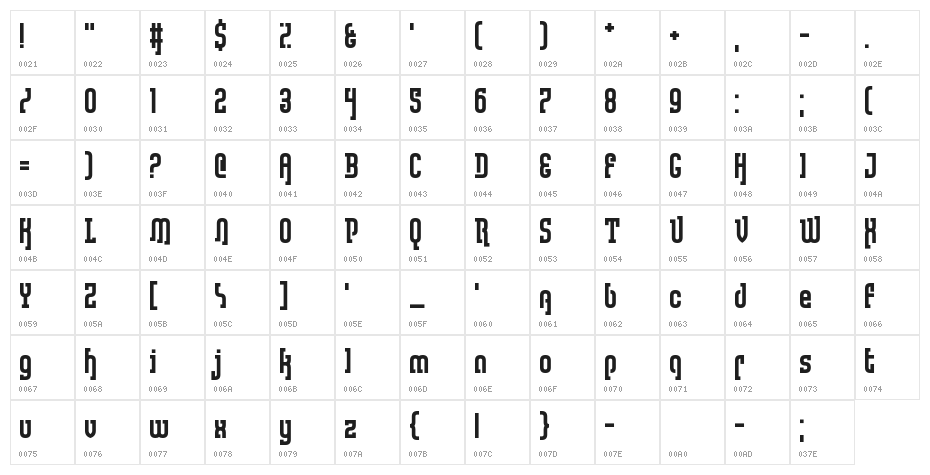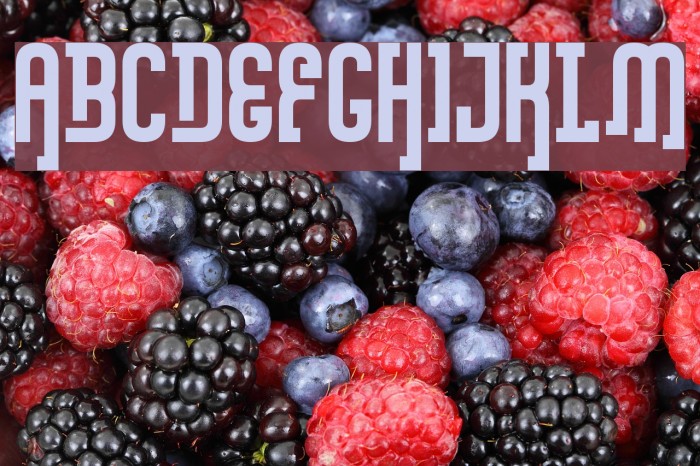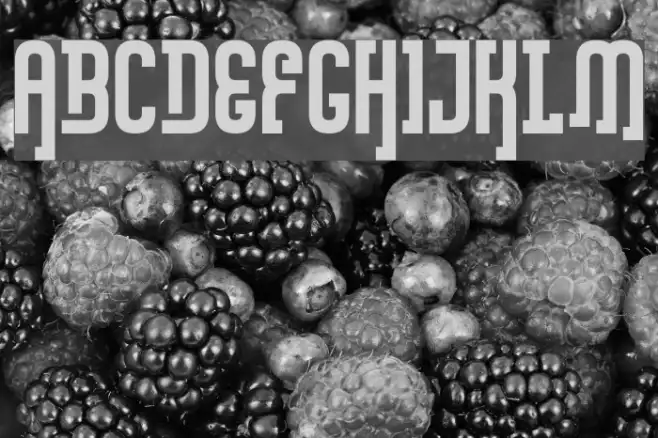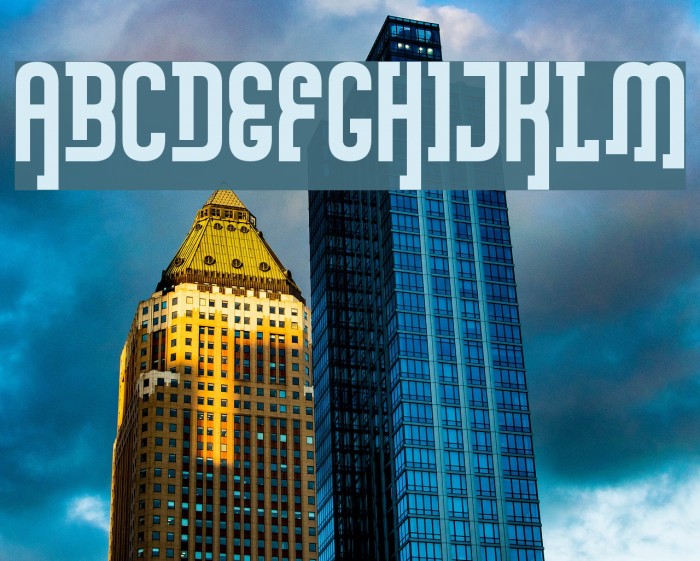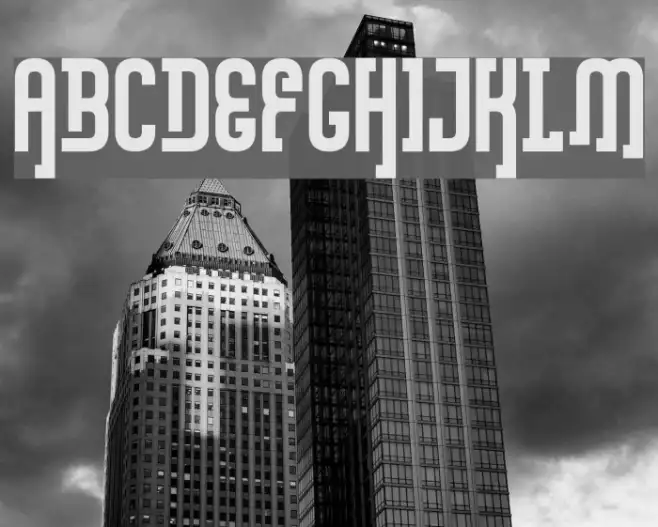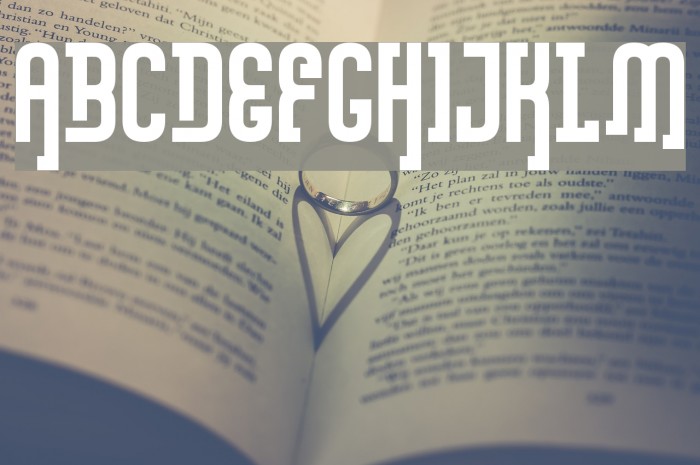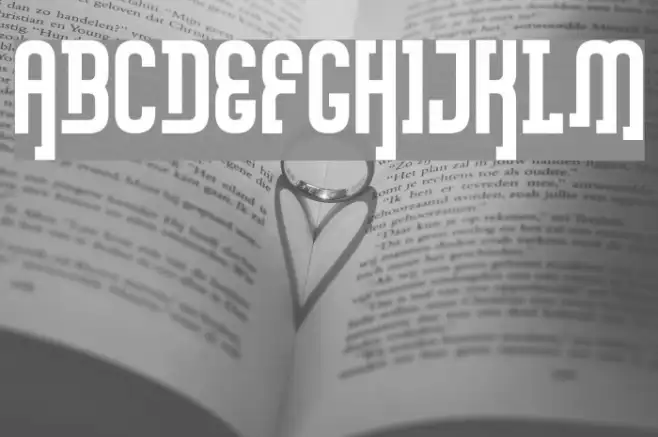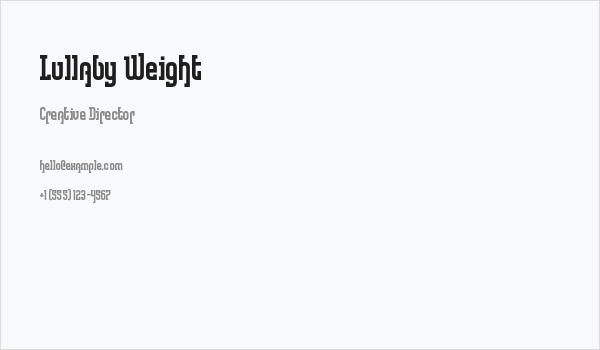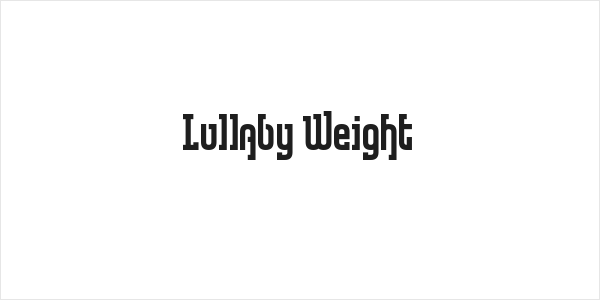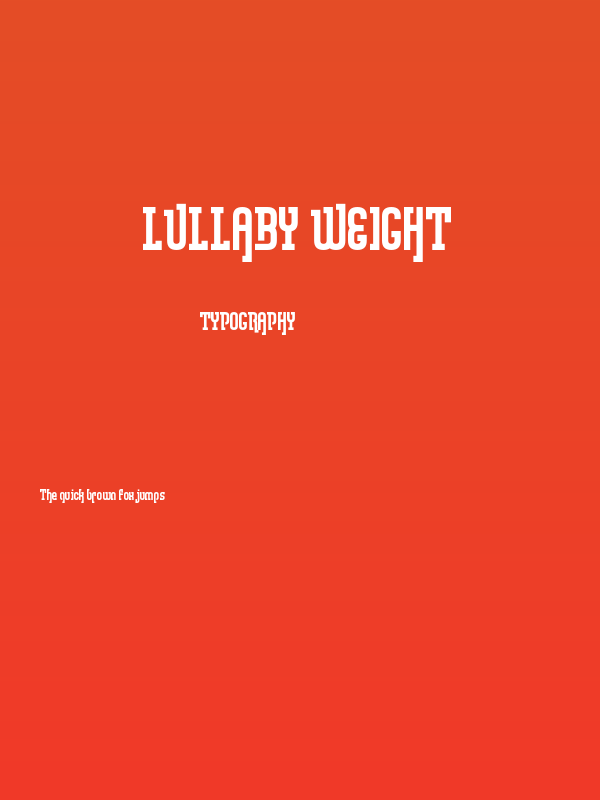
Lullaby Weight Font
Lullaby Weight Description
This font features a bold and striking design with a strong geometric influence. The characters are tall and narrow, with a consistent stroke width that gives them a uniform appearance. The uppercase letters are particularly prominent, with a blocky and robust style that commands attention. The lowercase letters maintain the same geometric structure, providing a cohesive look across the typeface. The numerals are equally bold, ensuring they stand out in any context. Special characters are designed to match the overall aesthetic, making this font suitable for a variety of uses where a strong visual impact is desired.
| Proposed Projects | Ideal for posters, headlines, branding, and any project requiring a bold statement. |